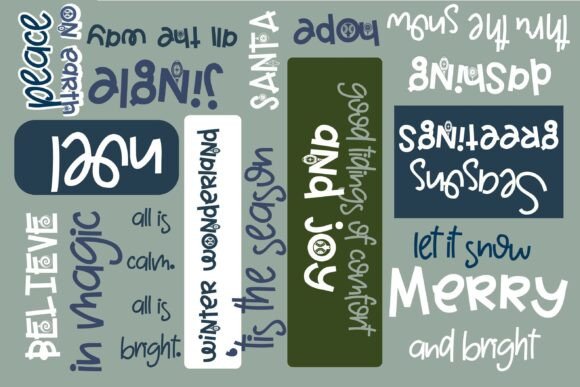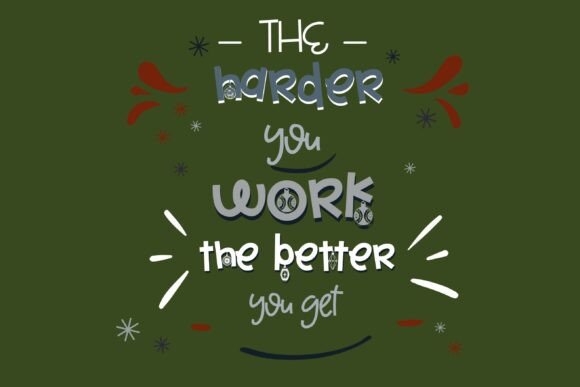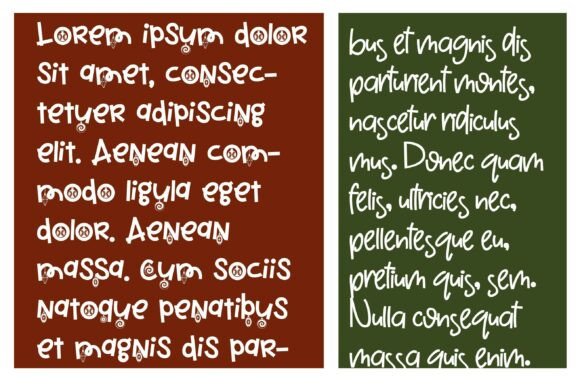
Introduction to Eggnoger Duo Font Font
As the holiday season approaches, designers often find themselves seeking the perfect font to capture the magic and warmth of the season. Have you ever scrolled through your design resources, searching for that special something to elevate your winter project? For many, the perfect font is just out of reach – until now.
Get ready to add some festive flair to your designs with the Eggnoger Duo Font Font, a delightful pairing that’s sure to become your go-to choice for all things charming and seasonal this winter. This high-quality font duo offers endless possibilities for creative projects, from whimsical greeting cards to custom gift tags and fun social media posts.
Key Features of Eggnoger Duo Font Font
- Includes a wide range of characters, including uppercase and lowercase letters, numbers, and punctuation
- Unique characteristics: bold and elegant design, perfect for adding a touch of sophistication to any creative project
Honest Review: Eggnoger Duo Font Font
I recently had the opportunity to work with the Eggnoger Duo Font Font, and I must say it’s been a game-changer for my design projects. This font is a true gem for designers and artists alike, offering a unique and stylish addition to any creative project.
- ✨ High-quality design that’s perfect for logos, branding, and packaging
- ✨ Suitable for a wide range of design styles, from modern to vintage
- ⚠️ May not be suitable for text-heavy designs or large body copy
Overall, I’m thoroughly impressed with the Eggnoger Duo Font Font. Its unique design and versatility make it an excellent addition to any design resource library. If you’re looking for a high-quality font to elevate your creative project, I highly recommend giving this one a try.
To get the most out of Eggnoger Duo Font Font, use it on a transparent background to create a clean and modern look. You can also use it in combination with other design elements, such as graphics and images, to create a unique and eye-catching design.
Eggnoger Duo Font Font is commonly used in graphic design, branding, and advertising. It’s a versatile font that can be used for a variety of design projects, from logos and business cards to posters and flyers.